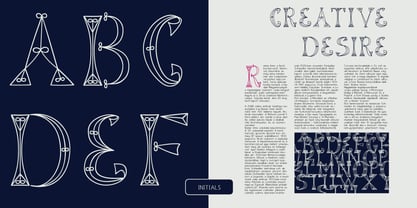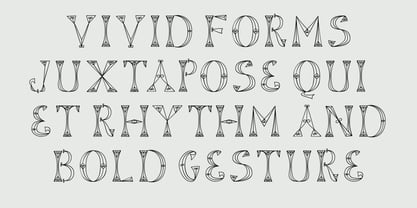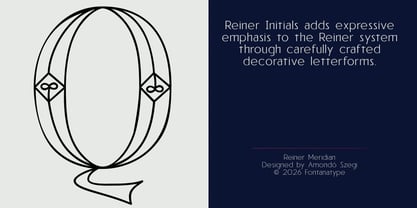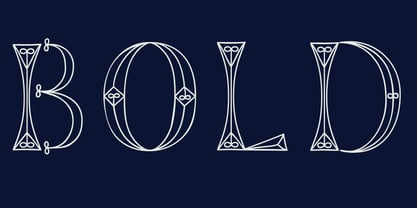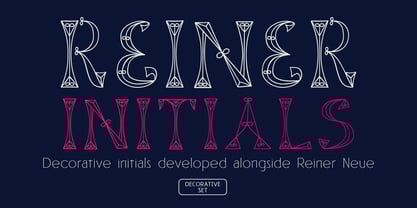
Reiner Initials
The Reiner Initials Font Family was designed by Amondó Szegi and published by Monovo. Reiner Initials contains 1 styles.
Reiner Initials is a decorative lettering set developed as a companion to the Reiner Neue system. Drawing from Imre Reiner’s characteristic approach to form and gesture, the initials reinterpret expressive letter shapes within a contemporary typographic context. While rooted in ornamental thinking, the forms are carefully refined to remain structurally aligned with Reiner Neue, allowing them to integrate naturally into editorial layouts, branding applications, and typographic compositions. The set is designed to function as an accent layer, introducing emphasis, contrast, and personality without disrupting visual continuity. Reiner Initials is not a standalone display font but a complementary tool within a wider typographic system, offering designers an expressive extension that enriches the overall typographic voice.